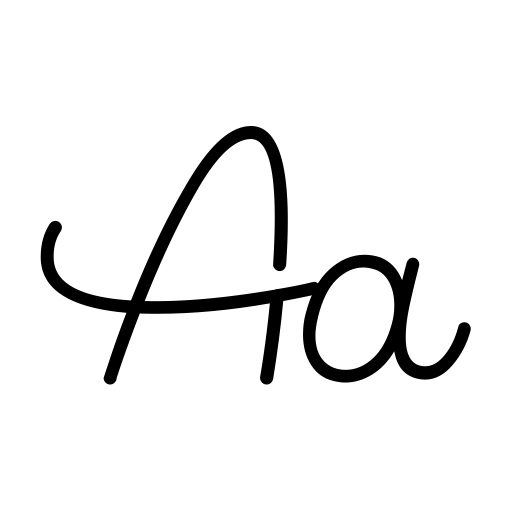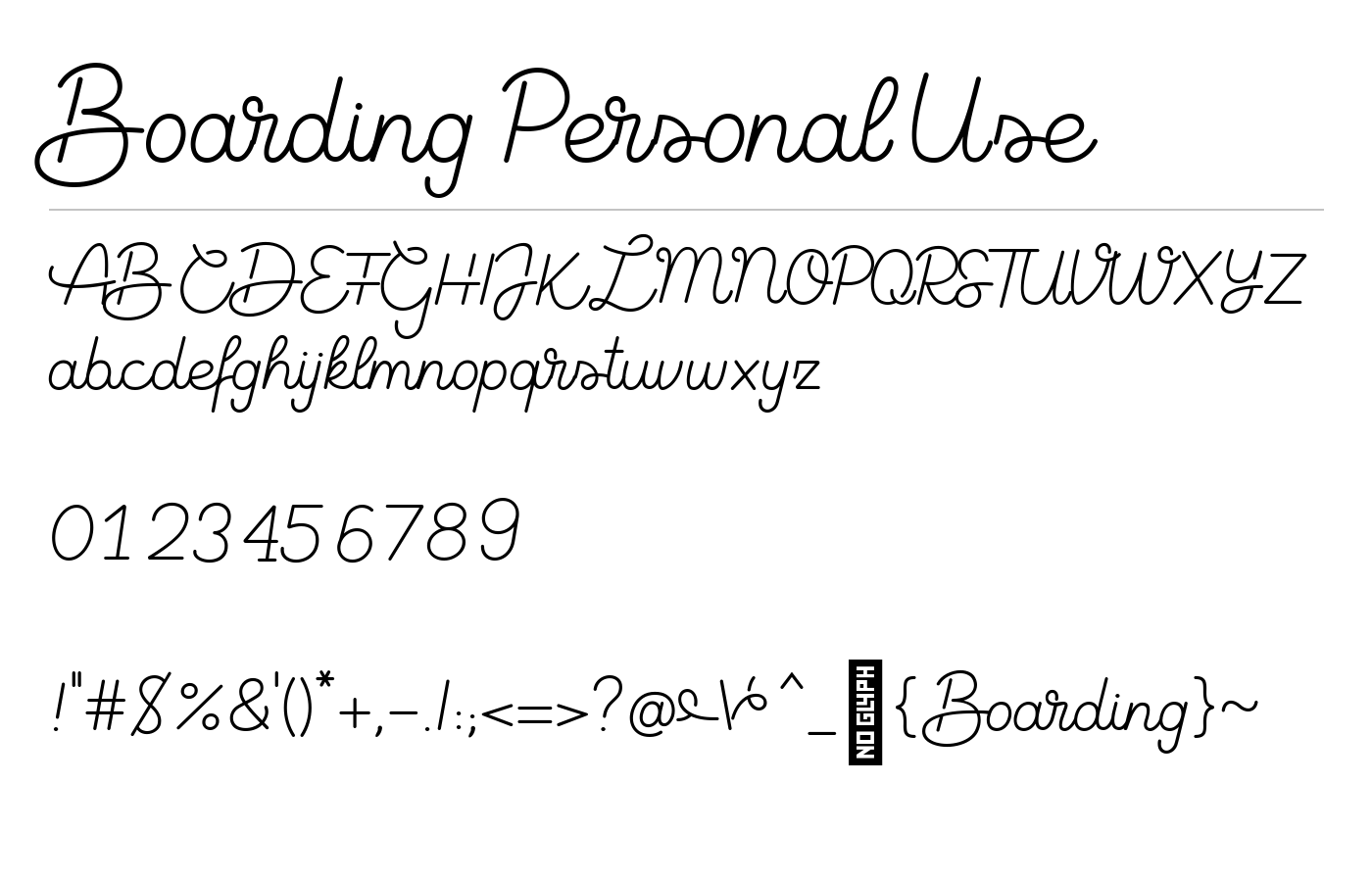
Boarding Personal Use is a delicate, cursive script font characterized by its thin, smooth lines and elegant loops, giving it a hand-drawn, personalized feel. Its narrow, upright letterforms with consistent stroke weight make it ideal for stylish headlines, invitations, and branding that seek a light, friendly, and sophisticated look. This font works well in creative or fashion contexts where a refined yet approachable touch is desired.
Boarding Personal Use Font
About Boarding Personal Use Font